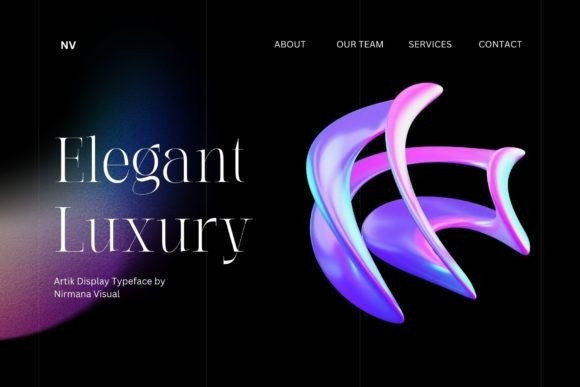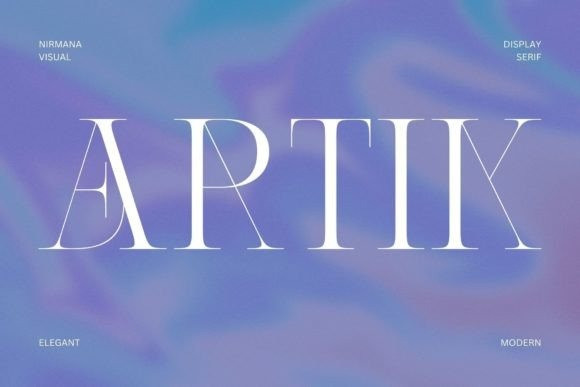
Artik Font
Artik Font – Modern Aesthetic offers beautiful typographic harmony for a diversity of design projects, including logos & branding, social media posts, advertisements & product designs.